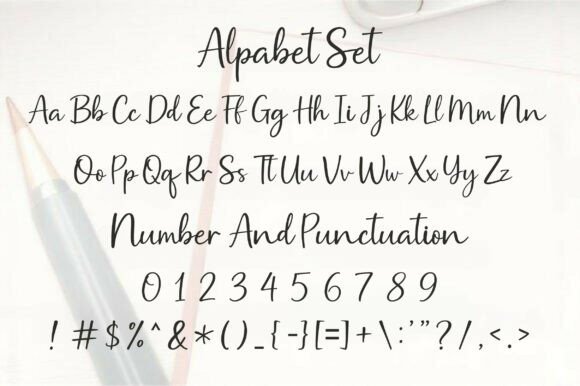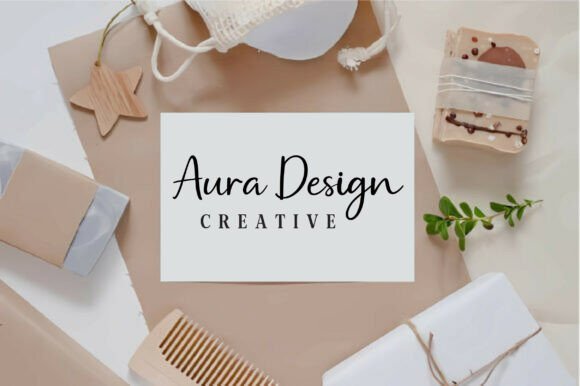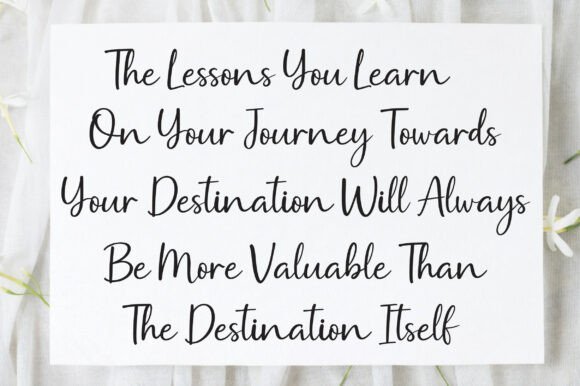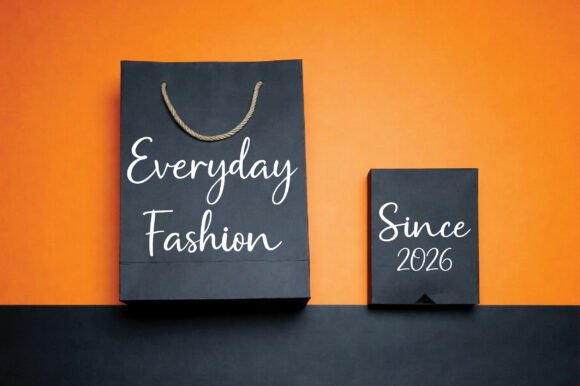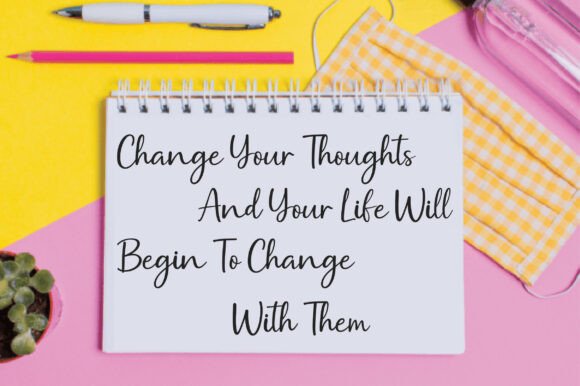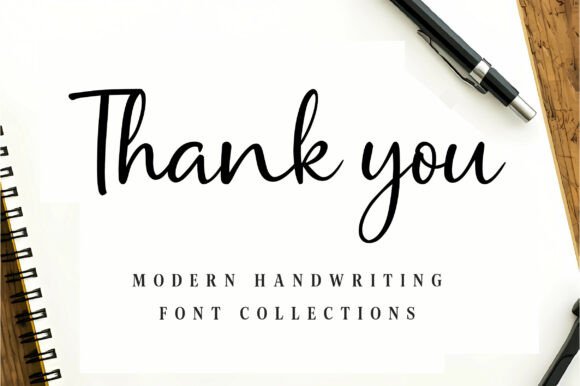
Introduction to Smooth Handwritten Font Font
Fonts play a crucial role in design, and the Smooth Handwritten Font font is a typeface that brings both character and versatility to any project. Whether you’re working on a branding project, a website, or a print design, the Smooth Handwritten Font font offers a unique style that can elevate your work.
Capture the effortless flow of real ink on paper with the Smooth Handwritten font.
This fluid, cursive typeface is designed to look like authentic penmanship, featuring graceful loops and a natural rhythm that feels personal and intimate The Smooth Handwritten typeface is an exquisite choice for handwritten letters, signature-style logos, and elegant lifestyle branding.
Key Features of Smooth Handwritten Font Font
Why Choose Smooth Handwritten Font Font?
The Smooth Handwritten Font font is more than just a typeface – it’s a design tool that helps you communicate your message with style and clarity. Its unique character set and versatile design make it suitable for a wide range of applications, from elegant invitations to bold headlines.
With its carefully crafted letterforms and balanced proportions, the Smooth Handwritten Font font ensures readability and visual appeal across all mediums.
What makes Smooth Handwritten Font font special?
The Smooth Handwritten Font font stands out with its unique design, exceptional readability, and versatility across various design applications.